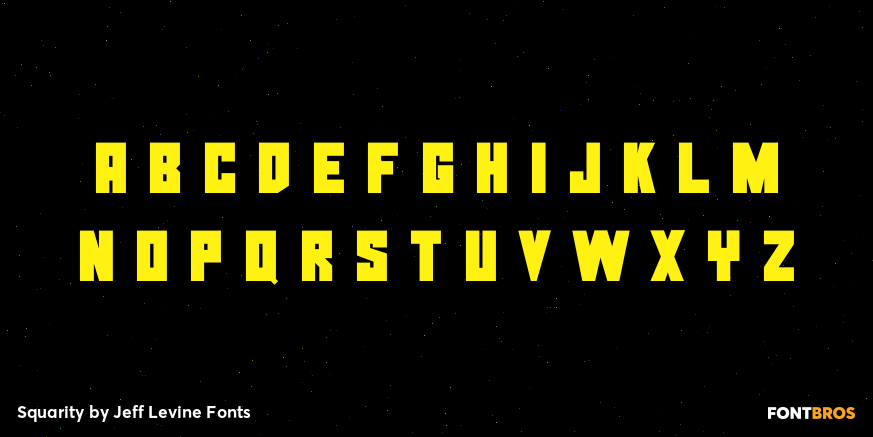
Squarity
Squarity JNL is an ultra-bold font derived from Jeff Levine's Yorso Square JNL.
Use the font at large point sizes to emphasize messages with power, punch, strength or toughness.